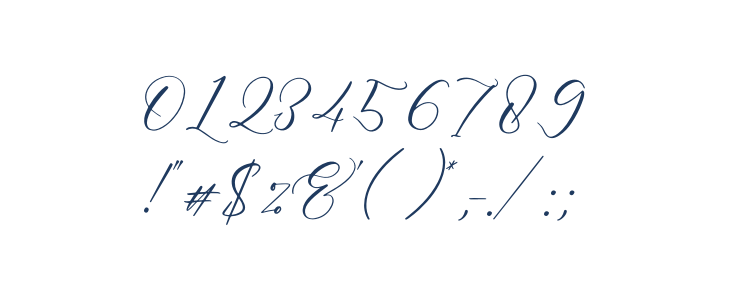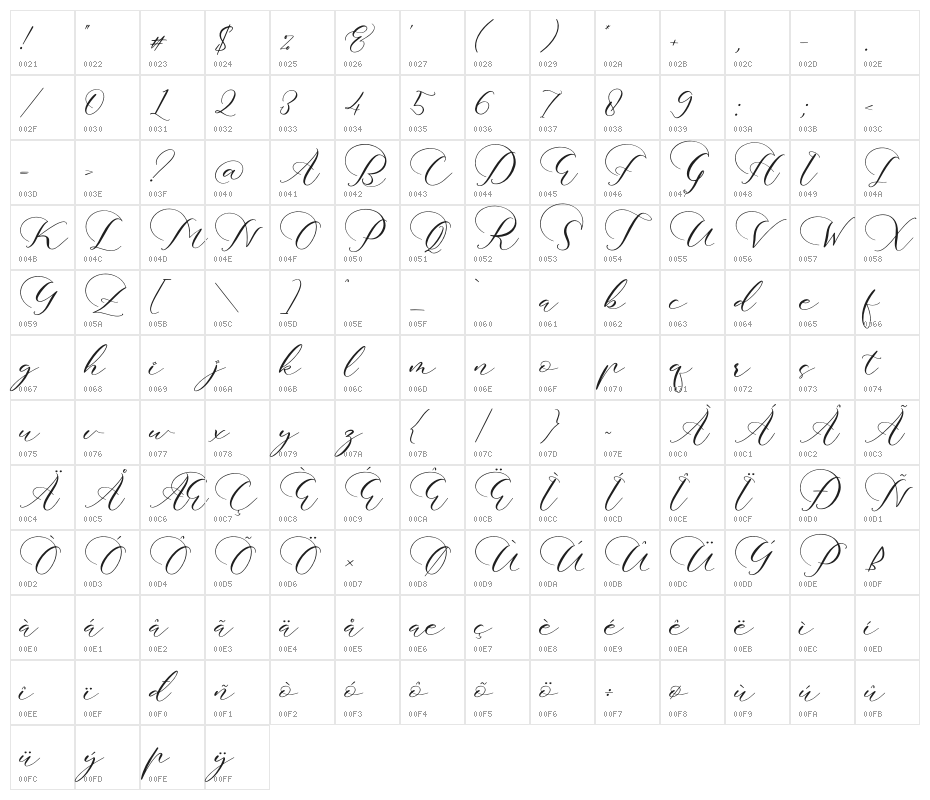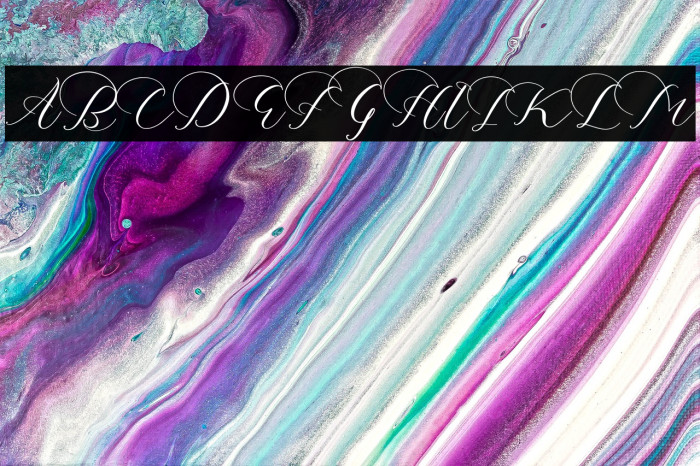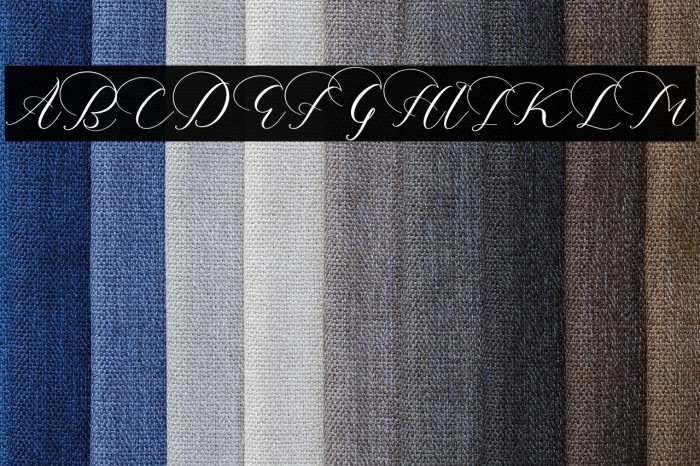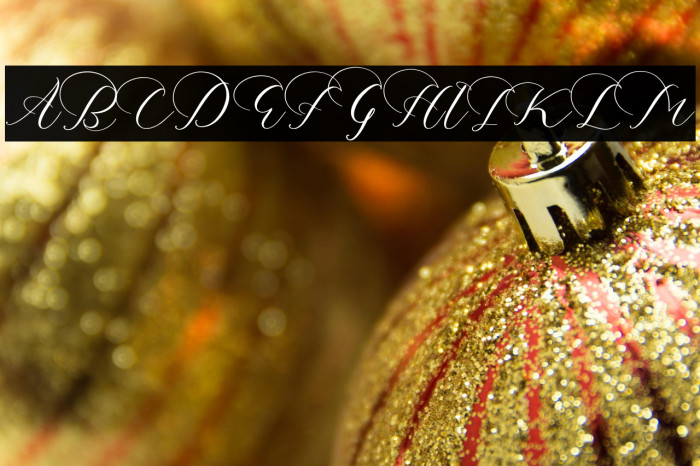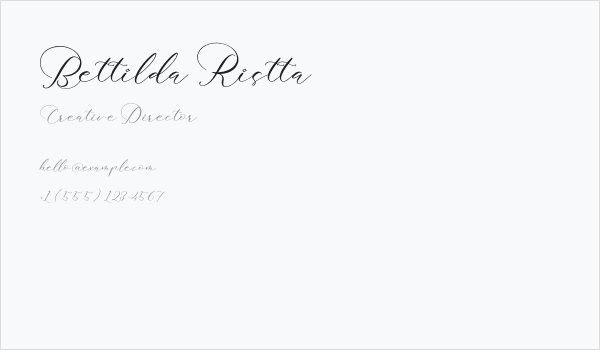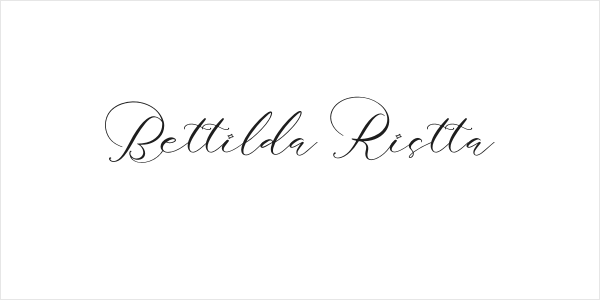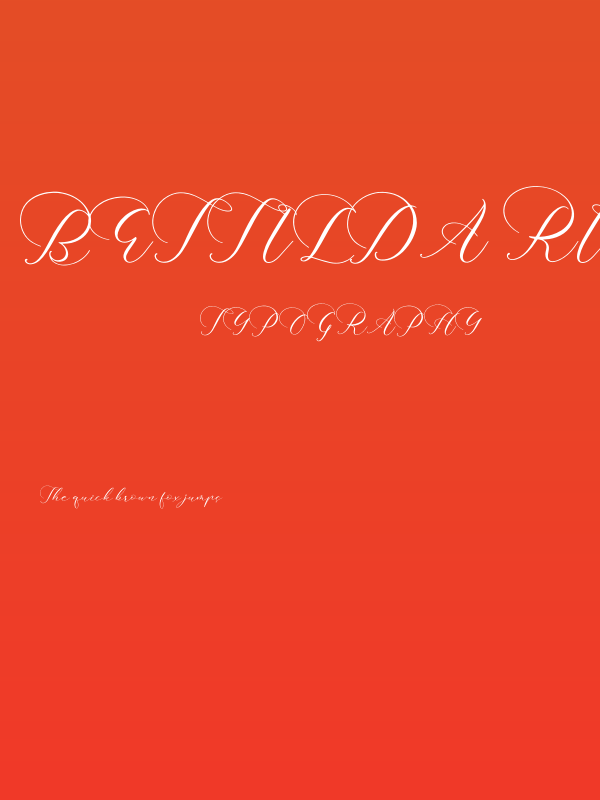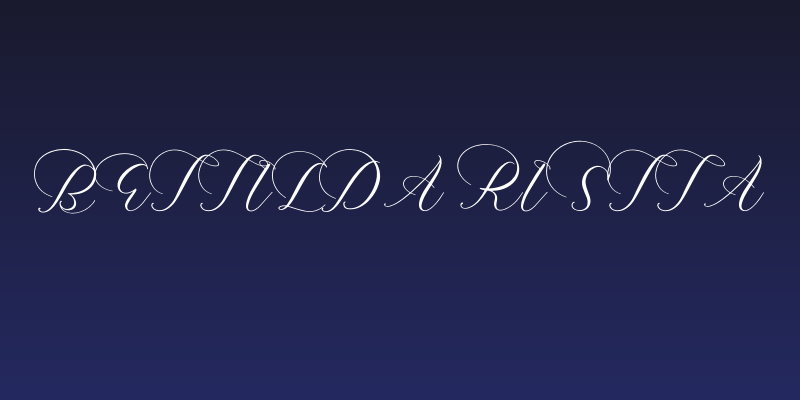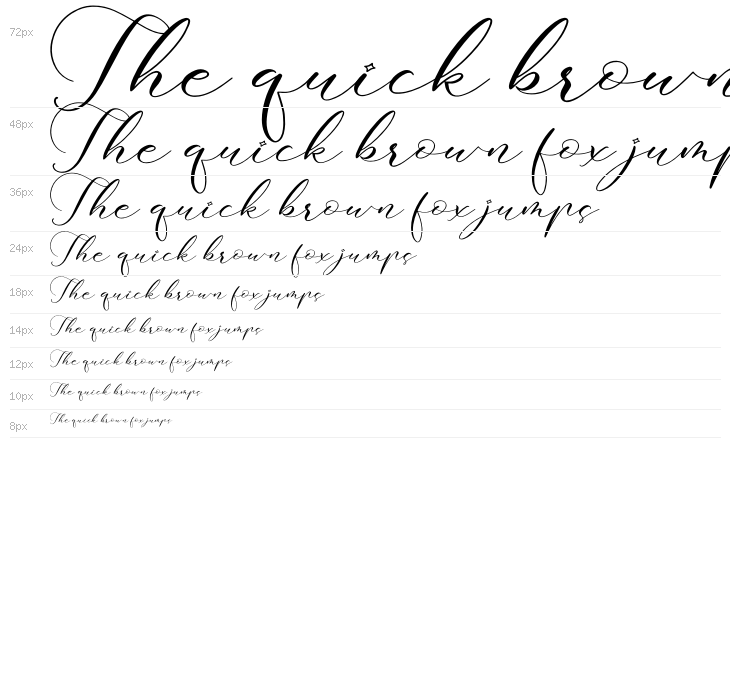
Bettilda Ristta Font
Bettilda Ristta Description
This elegant script font features a flowing, cursive style with intricate loops and flourishes. The uppercase letters are adorned with sweeping ascenders and descenders, creating a sense of movement and grace. The lowercase letters maintain a consistent flow, with smooth connections between characters. The numerals are designed with a similar flair, incorporating gentle curves and stylish accents. Special characters are crafted with attention to detail, enhancing the font's overall decorative appeal. This font exudes sophistication and is ideal for projects that require a touch of elegance and refinement.
| Overall Style | Elegant |
| Use Case | Logos, Invitations, Decorative text |
| Proposed Projects | Ideal for wedding invitations, elegant branding, greeting cards, and upscale packaging. |